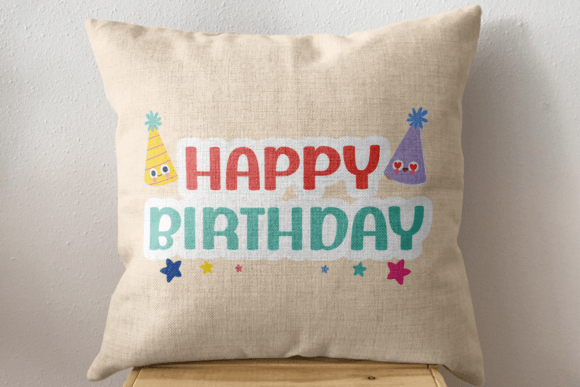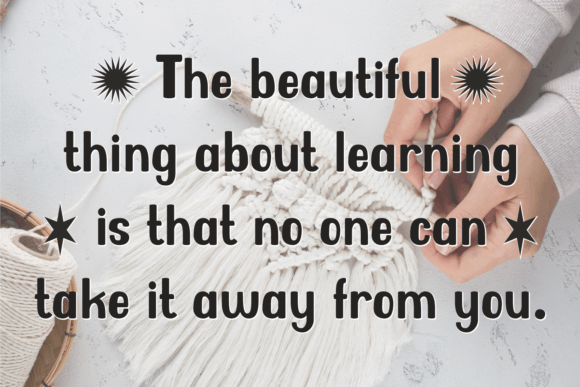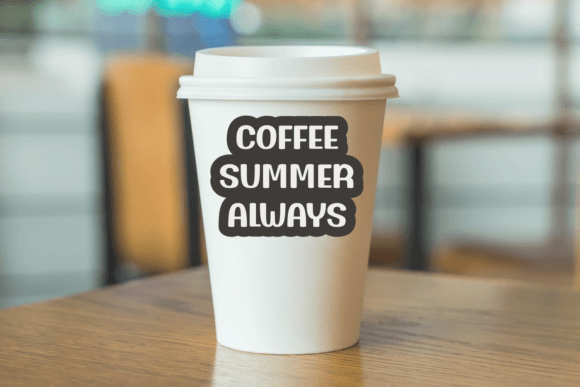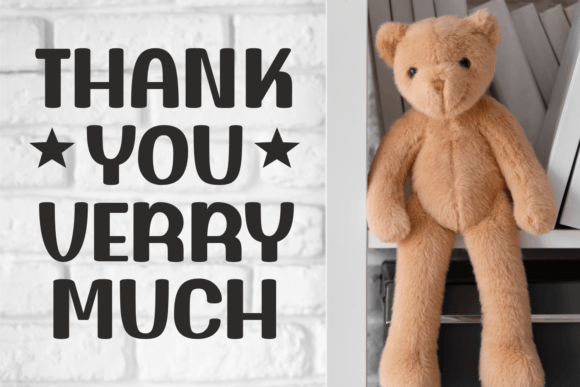
Discover the Charm of Handmade Teacher Font: Elevate Your Designs with a Touch of Elegance
Immerse yourself in the exquisite world of typography, where each font tells a unique story. In this realm of creative expression, the Handmade Teacher font stands out as a lovely and timeless display font. It is the best choice for creating eye-catching logos, branding, and quotes that capture the essence of elegance and sophistication. Every letter has a unique and beautiful touch, which will make your design come alive!
The Beauty of Handmade Teacher Font
The Handmade Teacher font is a masterpiece of typographic design, boasting a distinctive and charming aesthetic that sets it apart from other fonts. Its handmade quality gives it a personal touch, making each letterform a work of art. The font’s unique characteristics, such as its subtle imperfections and organic feel, evoke a sense of nostalgia and warmth, reminiscent of handwritten scripts.
Whether you’re a designer, crafter, or DIY enthusiast, the Handmade Teacher font is an excellent addition to your creative toolkit. Its versatility makes it suitable for a wide range of projects, from logo design and branding to crafting quotes, posters, and social media graphics. The font’s elegant and sophisticated style ensures that your designs will stand out from the crowd, making it perfect for those who want to add a touch of refinement to their work.
Key Features of Handmade Teacher Font
- Unique and Beautiful Touch: Each letter has a distinct character, giving the font a personal and handmade feel.
- Timeless Display Font: The font’s classic style ensures that it will remain relevant for years to come, making it a valuable asset for any designer or crafter.
- Elegant and Sophisticated: The font’s refined aesthetic makes it perfect for creating high-end designs, logos, and branding materials.
- Versatile: Suitable for a wide range of projects, from digital designs to print materials.
Tips for Using Handmade Teacher Font
To get the most out of the Handmade Teacher font, here are some tips to keep in mind:
- Pair it with Other Fonts: Combine Handmade Teacher with other fonts to create a unique and visually appealing typography.
- Experiment with Colors: The font looks great in a variety of colors, so don’t be afraid to try out different hues and shades.
- Use it for Headlines and Titles: The font’s bold and elegant style makes it perfect for headlines, titles, and quotes.
In conclusion, the Handmade Teacher font is a beautiful and timeless display font that can elevate your designs to new heights. Its unique and beautiful touch, elegant style, and versatility make it a valuable asset for designers, crafters, and DIY enthusiasts. Whether you’re looking to create eye-catching logos, branding materials, or quotes, this font is sure to impress. So why wait? Immerse yourself in the world of Handmade Teacher font and discover the magic of typography!
Get Ready to Fall in Love with Handmade Teacher Font
With its charming aesthetic and endless possibilities, the Handmade Teacher font is sure to capture your heart. So, take the first step and explore the world of this exquisite font. Let your creativity shine, and watch as your designs come alive with the beauty and elegance of Handmade Teacher!